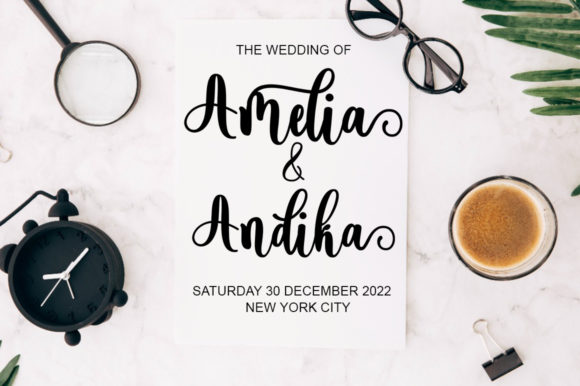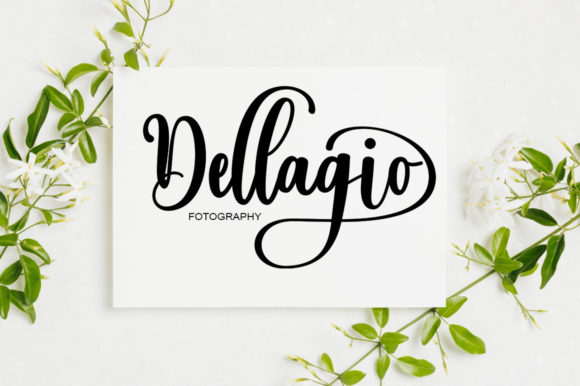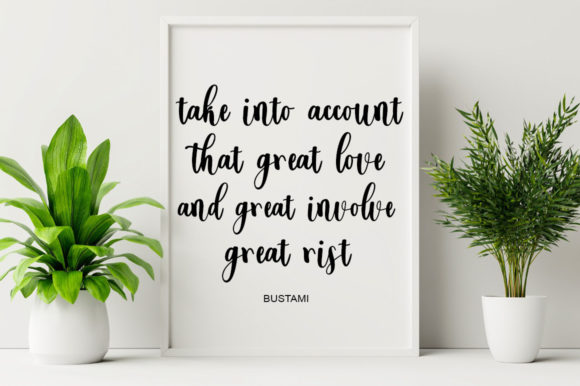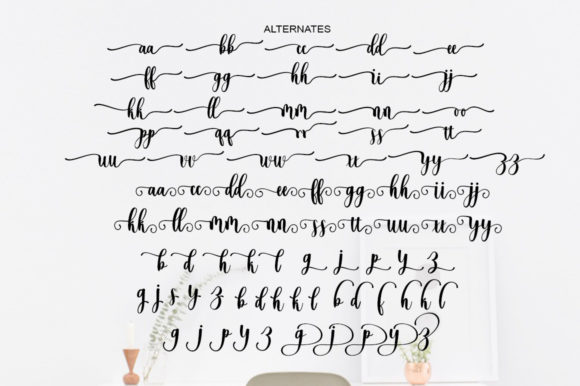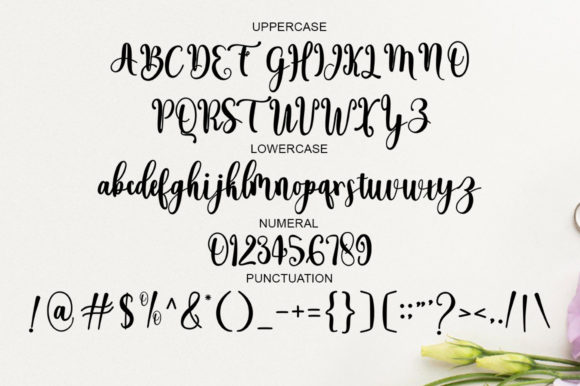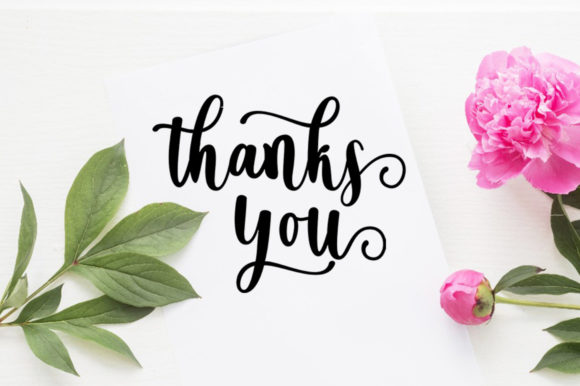
The Perfect Script: Unveiling the Elegance of Balinda Font
Have you ever found yourself sitting in front of a blank canvas, struggling to find the perfect font to bring your design to life? The blank page can be intimidating, but what if you had a secret weapon at your disposal? For designers seeking a touch of sophistication and whimsy, the Balinda Font is here to save the day.
Balinda is a stunning script font that exudes elegance and refinement. With its intricate strokes and fluid connections, this font is perfect for creating beautiful, hand-written-like designs. Whether you’re crafting a wedding invitation, a branding package, or a social media post, the Balinda Font is sure to make a lasting impression.
- Unique Characteristics: Balinda features a unique blend of modern and traditional design elements, with intricate details and subtle flair
Design Review: Balinda Font
I recently had the chance to work with the Balinda font, and I must say it’s a unique addition to any design project. ✨ Here are some things that really stood out to me:
- Playful yet elegant**: Balinda font has a perfect balance of whimsy and sophistication, making it suitable for a wide range of design applications.
- Legibility**: The font is highly legible, even at smaller font sizes, which is a big plus for designers who need to ensure their text is easily readable.
- Customization options**: Balinda font comes with a range of customization options, including different weights and styles, allowing designers to tailor the font to their specific needs.
However, like any font, Balinda isn’t without its limitations ⚠️:
- Limited language support**: Unfortunately, Balinda font only supports Latin-based languages, which may limit its use for designers working with other languages.
- Not suitable for headlines**: While Balinda font is great for body text, it may not be the best choice for headlines, as it can come across as a bit too casual.
Overall, I think Balinda font is a solid choice for designers looking for a versatile and legible font. While it may have some limitations, its unique charm and customization options make it a valuable addition to any design project.
For the best results, use the Balinda font in combination with elegant and modern design elements, such as watercolor textures and geometric shapes. Balinda font is commonly used in luxury branding, high-end packaging, and sophisticated advertising materials. It’s also suitable for creating elegant wedding invitations, graduation announcements, and other special occasion materials.